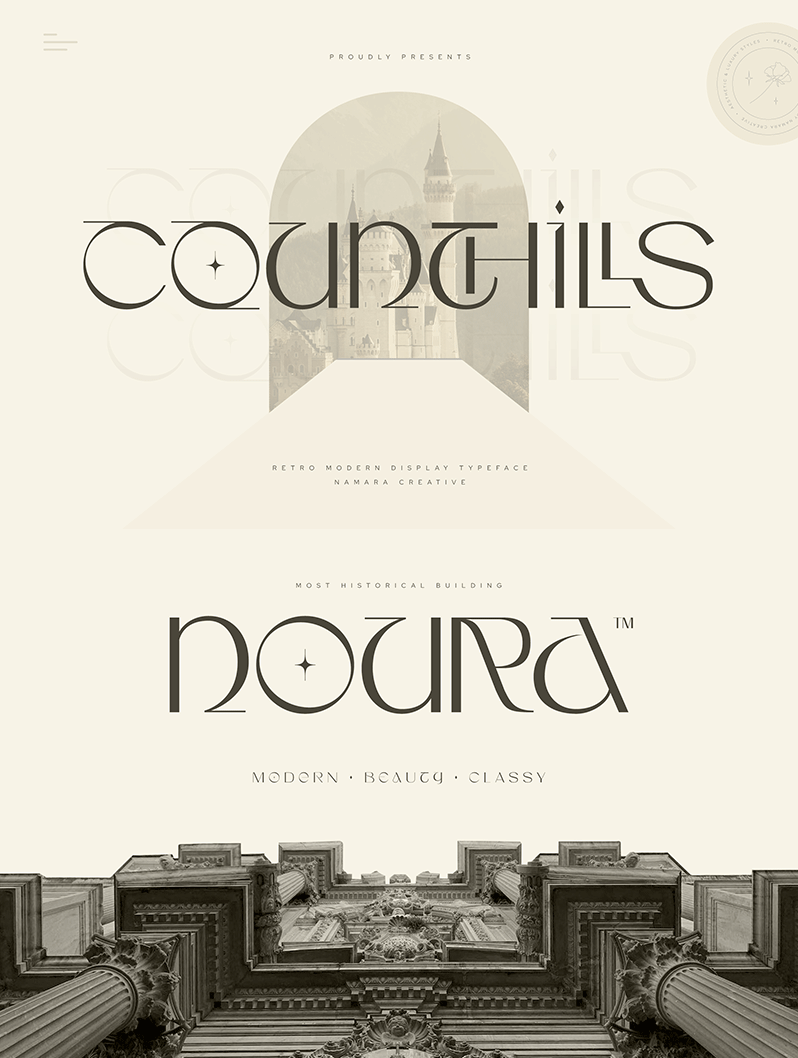
Font name: | Counthills |
Author: | Namara Creative |
Note by Namara Creative | |
Modern contemporary display typeface, It conveys innovation and sophistication, creating a strong visual impact in modern style typeface. NOTE : - This font is PERSONAL USE ONLY, NO COMMERCIAL USED ALLOWED. - Link to purchase Full Version and Commercial license : https://onedsgn.com/product/counthills-display/ |